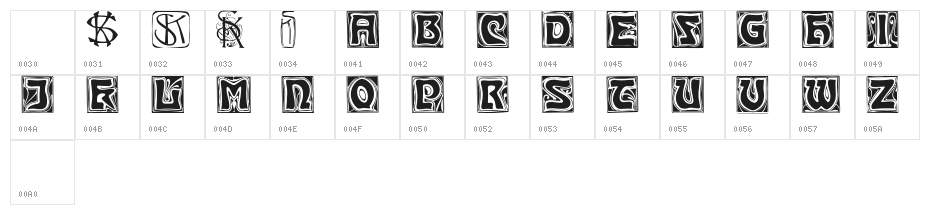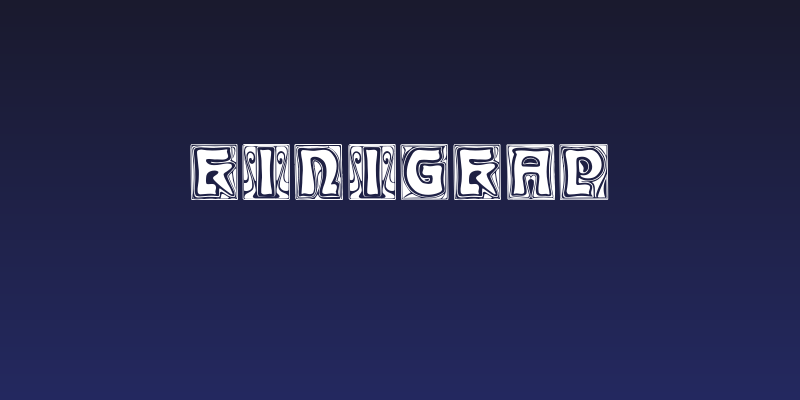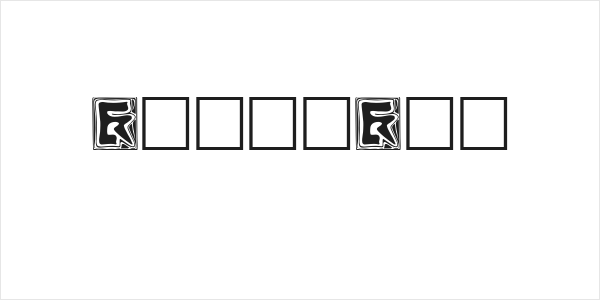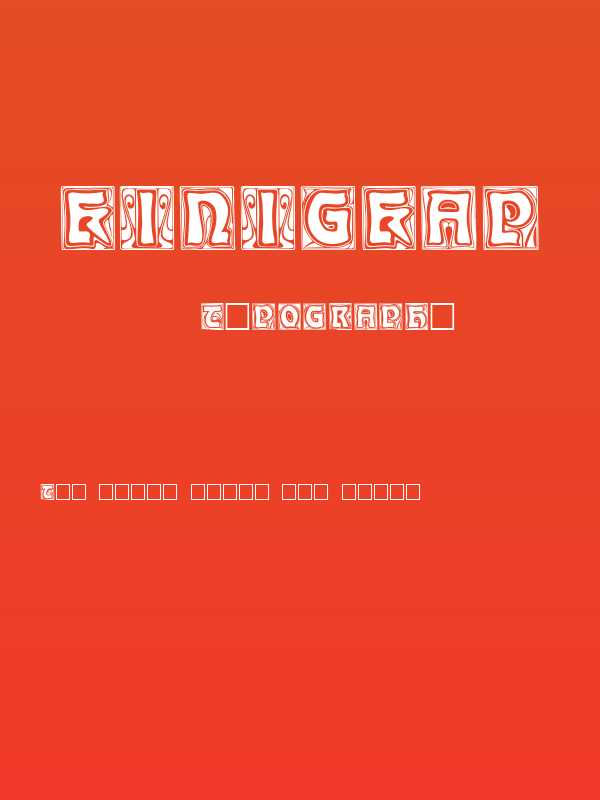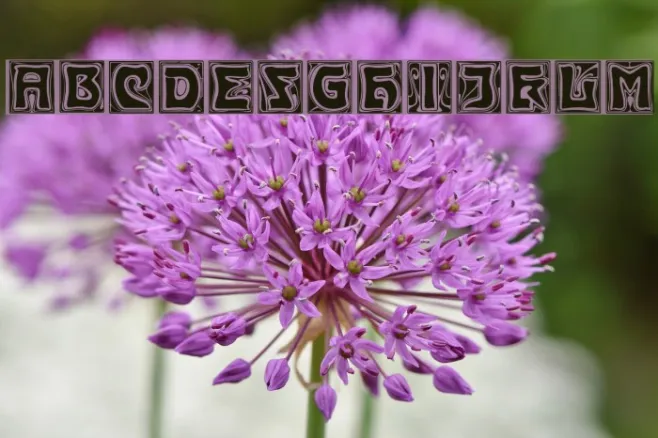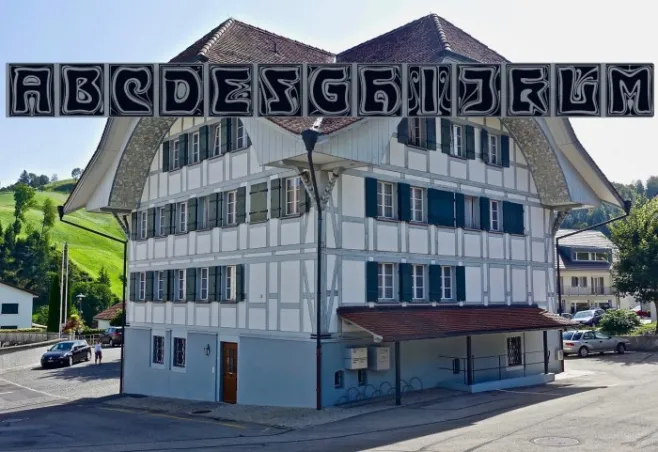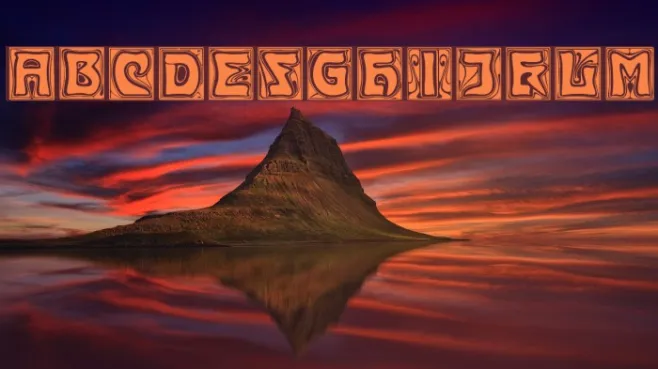
KinigKap Font
KinigKap Description
This font features a highly decorative and artistic style, with each character enclosed in a square frame. The letters are bold and exhibit a swirling, almost psychedelic pattern within each character, creating a sense of movement and fluidity. The intricate design is consistent across the uppercase alphabet, while the lowercase and numerical characters are not present in this set. The special characters, such as the dollar sign and ampersand, continue the ornate theme, adding a touch of elegance and complexity. This font is ideal for projects that require a strong visual impact and a unique, artistic flair.
| Proposed Projects | Ideal for album covers, posters, branding for creative industries, and any project needing a bold, artistic statement. |